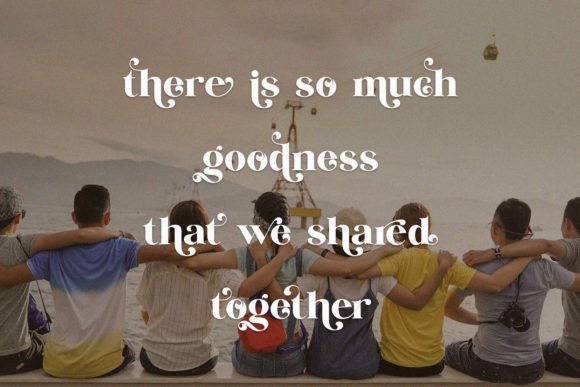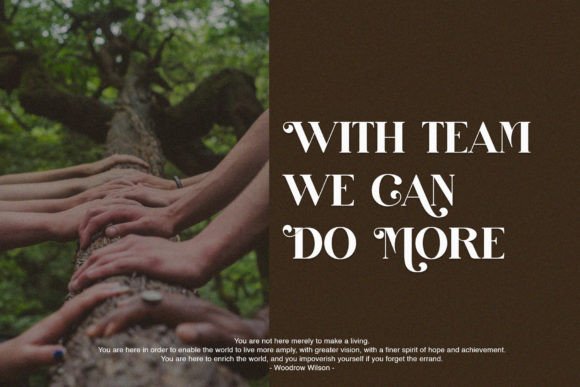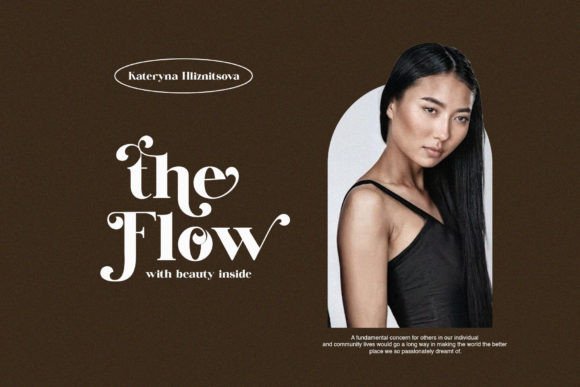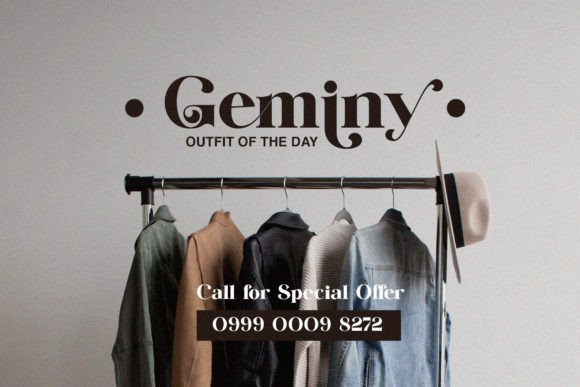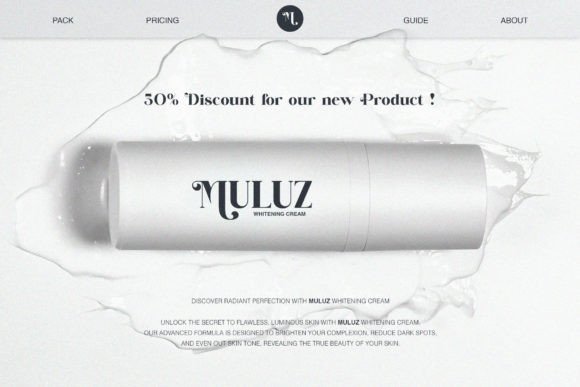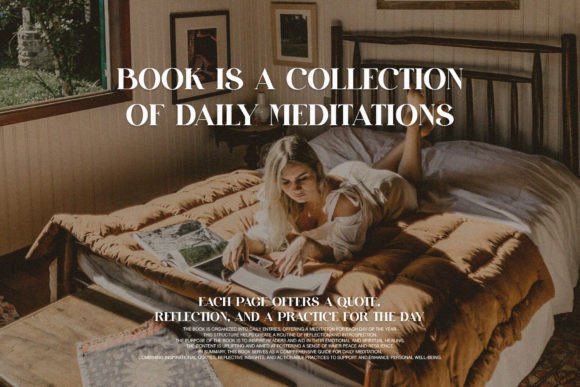
Introducing Brother Siglone Font: Elevate Your Designs with Elegance
Are you a designer or crafter looking for a font that exudes elegance and sophistication? Look no further than the Brother Siglone Font, a stunning ligature serif font inspired by the famous minimalist logo. This versatile font is perfect for a wide range of design purposes, from creating templates and brochures to crafting beautiful logos, invitations, and more.
The Inspiration Behind Brother Siglone Font
The Brother Siglone Font draws inspiration from the iconic minimalist logo, reimagining its clean lines and simple elegance in a unique and captivating way. The result is a font that is both modern and timeless, perfect for designers and crafters who want to add a touch of sophistication to their work.
Key Features of Brother Siglone Font
- Elegant Ligature Serif: The Brother Siglone Font features beautiful ligatures and serifs, adding a touch of refinement and luxury to any design.
- Minimalist Aesthetic: Inspired by the famous minimalist logo, this font embodies the principles of simplicity and clean design.
- Versatile: Perfect for a wide range of design purposes, including templates, brochures, videos, advertising branding, logos, invitations, and more.
- Easy to Read: The Brother Siglone Font is not only beautiful but also highly legible, making it perfect for body text and headlines.
Uses for Brother Siglone Font
The Brother Siglone Font is incredibly versatile and can be used for a wide range of design purposes, including:
- Template Design: Create stunning templates for presentations, reports, and more.
- Brochure Design: Elevate your brochure designs with the elegant and sophisticated Brother Siglone Font.
- Video Production: Use the Brother Siglone Font in your video productions to add a touch of elegance and refinement.
- Advertising Branding: Create beautiful and effective advertising campaigns with the Brother Siglone Font.
- Logo Design: Use the Brother Siglone Font to create stunning logos that exude elegance and sophistication.
- Invitation Design: Create beautiful and elegant invitations for special occasions.
- Layout Design: Use the Brother Siglone Font to create stunning layouts for magazines, newspapers, and more.
- Elegant Crafting: Perfect for crafters who want to add a touch of elegance to their work.
- Beauty Design: Use the Brother Siglone Font to create stunning beauty designs, including packaging and branding.
Why Choose Brother Siglone Font?
With so many fonts available, why choose the Brother Siglone Font? Here are just a few reasons:
- Unique and Elegant: The Brother Siglone Font is a unique and elegant addition to any design.
- Highly Versatile: Perfect for a wide range of design purposes.
- Easy to Read: The Brother Siglone Font is highly legible, making it perfect for body text and headlines.
- Professional Quality: The Brother Siglone Font is of professional quality, ensuring that your designs look polished and refined.
In conclusion, the Brother Siglone Font is a stunning and elegant ligature serif font that is perfect for designers and crafters looking to add a touch of sophistication to their work. With its minimalist aesthetic, beautiful ligatures, and high legibility, this font is sure to elevate your designs to the next level. Whether you’re creating templates, brochures, logos, or more, the Brother Siglone Font is the perfect choice.